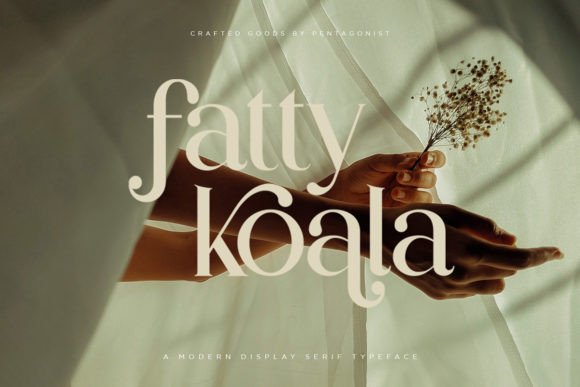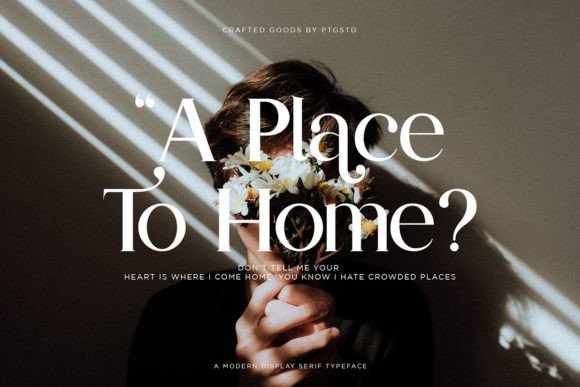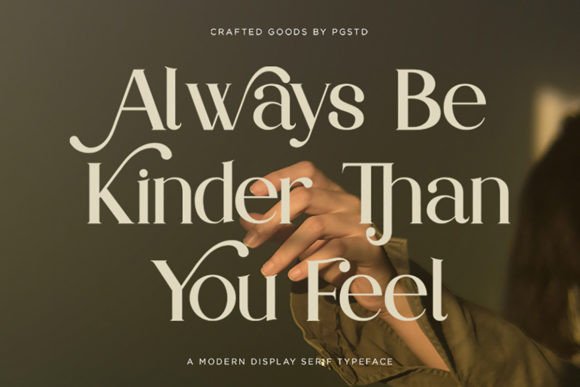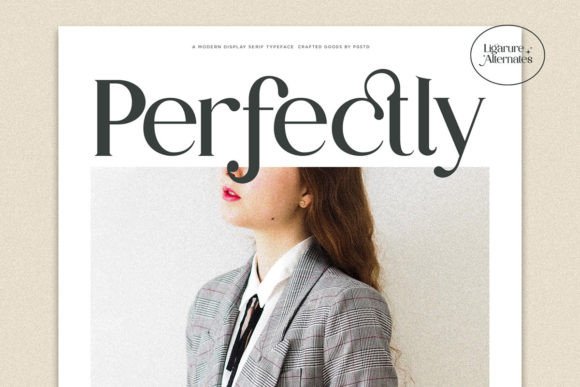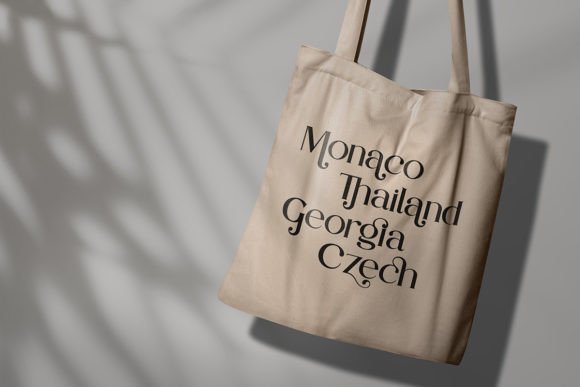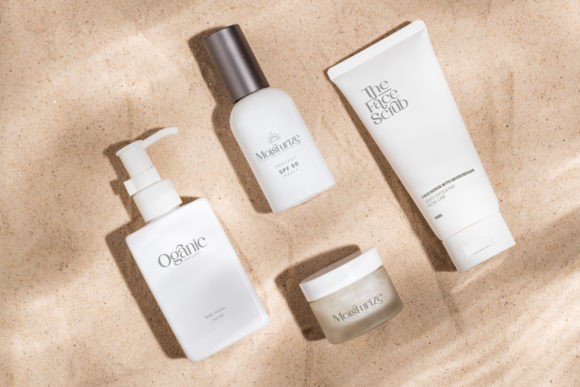
Introduction to Partake Font
Remember the rush of excitement you feel when you stumble upon the perfect font for your creative project? It’s that moment when all the pieces fall into place, and your design begins to take shape. For designers, finding the right font can make all the difference between a good design and a great one. And that’s exactly why we’re excited to introduce you to the Partake Font, a modern and chic serif font that’s sure to elevate your designs.
With its sophisticated and charming aesthetic, the Partake Font is the perfect addition to any design project. Whether you’re working on a branding project, a brochure, or a website, this font will add an elegant accent that’s sure to impress. And with its PUA encoded design, you can access all the glyphs and ligatures with ease, making it a valuable resource for any designer.
Key Features of Partake Font
- High-quality design: The Partake Font is carefully crafted to provide a premium aesthetic for your designs.
- Perfect for creative projects: This font is ideal for designers, artists, and creatives working on various projects, including branding, graphics, and more.
- Professional-grade typography: The Partake Font features a unique blend of modern and vintage elements, making it perfect for designers seeking a sophisticated look.
Honest Review: Partake Font
As a designer, I’m always on the lookout for high-quality design resources that can elevate my creative projects. The Partake Font is a free download that caught my attention, and I was excited to give it a try.
- Unique and creative style that adds a touch of elegance to any design
- High-quality typography that’s perfect for logos, titles, and headings
While the Partake Font is a great addition to any design arsenal, there are a few limitations to consider:
- Limited character set, which may not be suitable for longer text passages
- Not ideal for body text, as it can be quite ornate and distracting
Overall, I’m impressed with the Partake Font’s unique style and high-quality typography. While it may have some limitations, it’s a great resource for designers looking to add some creative flair to their projects.
For the best results, use the Partake Font in conjunction with a transparent background or a high-contrast color scheme. This will allow the font to stand out and make your design more visually appealing. You can also experiment with different font sizes and styles to create a unique and creative project.
The Partake Font is ideal for a wide range of creative projects, including social media graphics, blog posts, and presentations. It’s also a great resource for designers who need a high-quality font for their design work. With its free download and high-quality design, the Partake Font is a valuable addition to any design resource library.
Whether you’re working on a personal or professional project, the Partake Font is sure to bring a touch of sophistication and creativity. Its benefits are numerous, from adding visual interest to providing a professional finish. We highly recommend giving it a try and experiencing the difference it can make in your designs. Download the Partake Font today and unlock your full design potential!